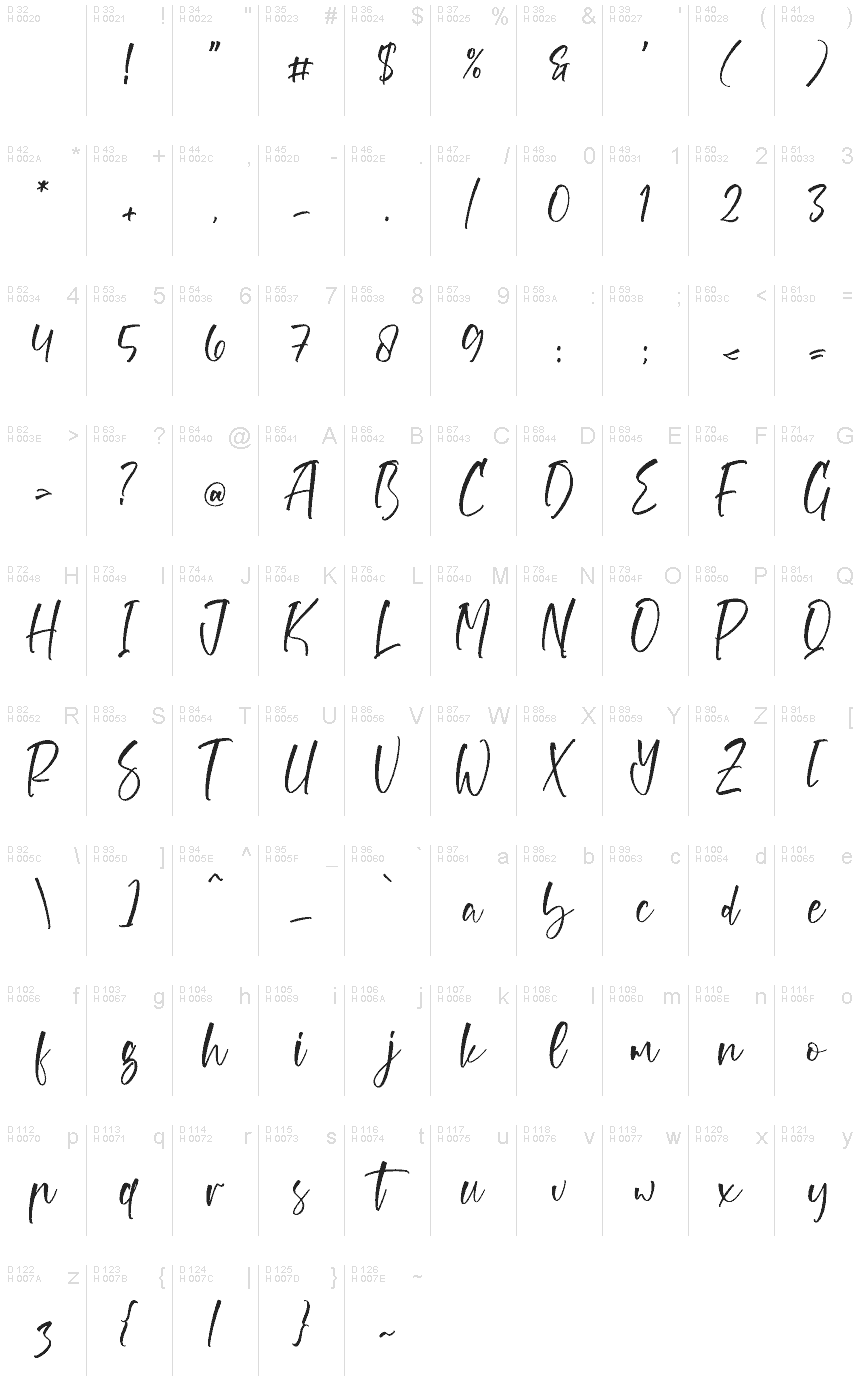
Welcoming Monthaile font by Perspectype Studio - Letterena.com is an artistic, handwritten script font that features elegant flowing letters. The expressive aesthetics of this typeface show modern elegance in its tilted pen strokes and thin-thick transitions. Present the written words beautifully like never before using Monthaile especially with its free allcaps letters.
This fancy script typeface ideally fits magazine covers, poster designs, wedding invitations/cards/other stationery, natural product packaging designs (jams, dairy products), book covers, wallpapers/patterns creation and decoration or any projects that could benefit from elegant handwriting!